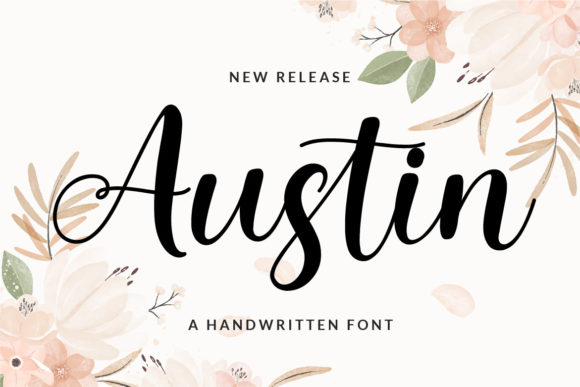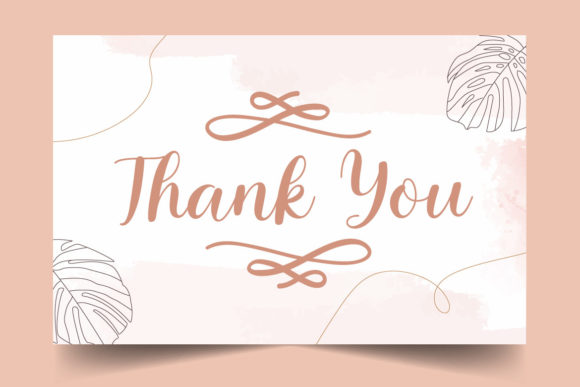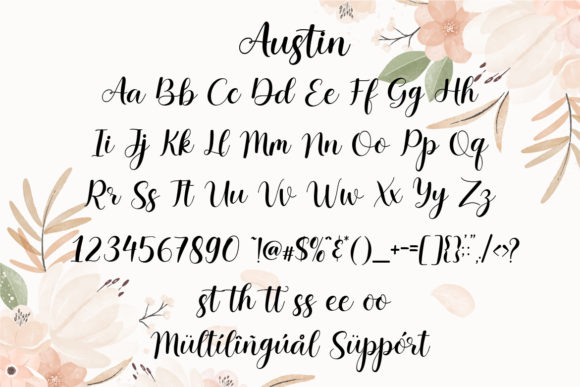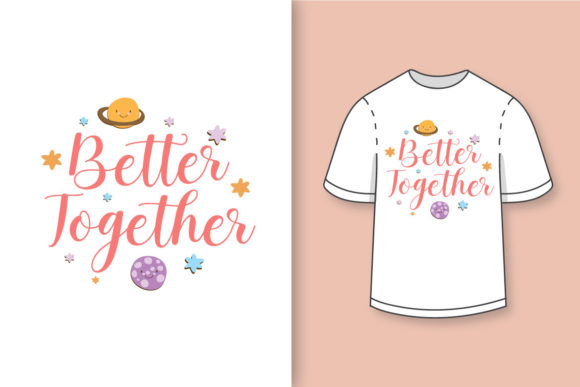
Austin Font
About Austin Font
Austin is an enchanting handwritten font. It looks beautiful on a variety of designs requiring a personalized style, such as wedding invitations, thank you cards, weddings, greeting cards, logos and so on.